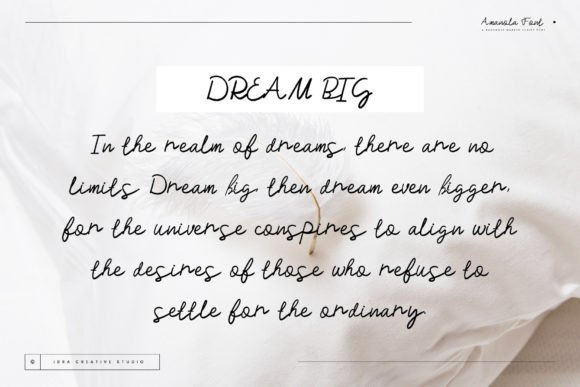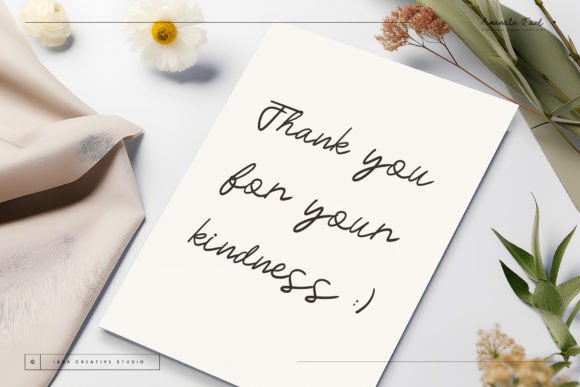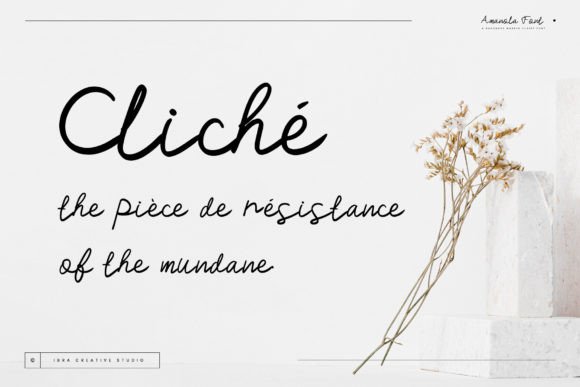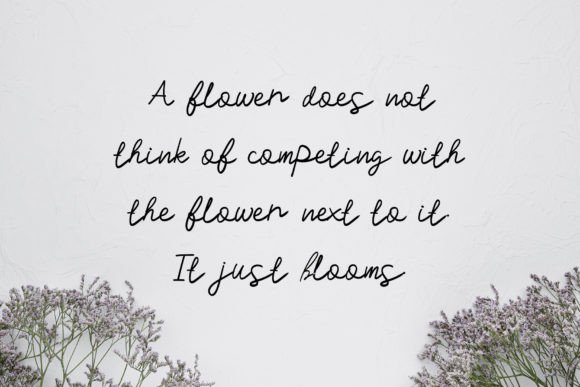
Amanola Font: A Handmade Marker Script Font with a Touch of Whimsy
In the world of typography, few fonts manage to capture the essence of handcrafted authenticity while still exuding modern design elements. Amanola, a captivating handmade marker script font, is one such typeface that seamlessly blends the warmth of hand-drawn markers with a touch of sophistication. This font is perfect for designers and crafters looking to add a personal touch to their projects.
The Characteristics of Amanola Font
Amanola’s letters are characterized by fluid strokes and an organic flow that emulates the character of hand-drawn markers. The font features subtly varying line weights, giving it a dynamic and expressive feel. The playful letter connections and carefully crafted details contribute to a uniquely personalized and inviting aesthetic. Whether you’re working on a branding project, a craft tutorial, or a social media graphic, Amanola’s distinctive charm is sure to make your work stand out.
What Makes Amanola Font So Special?
Amanola’s uniqueness lies in its ability to infuse any project with a sense of creativity and spontaneity. The font’s handmade nature gives it a relatable and approachable feel, making it perfect for designers and crafters who want to connect with their audience on a personal level. Amanola’s effortless grace and fluid strokes make it an excellent choice for a wide range of projects, from invitations and greeting cards to blog posts and social media graphics.
Using Amanola Font in Your Design Projects
Amanola’s versatility makes it an excellent addition to any designer’s toolkit. Here are a few ways you can use this beautiful font in your projects:
- Branding and Packaging: Add a touch of whimsy to your brand’s identity with Amanola’s unique and personalized aesthetic.
- Crafting and DIY Projects: Use Amanola to create eye-catching titles and headings for your craft tutorials, patterns, and blog posts.
- Social Media Graphics: Make your social media graphics stand out with Amanola’s playful and inviting font.
- Invitations and Greeting Cards: Add a personal touch to your invitations and greeting cards with Amanola’s beautiful, handmade script.
Tips for Getting the Most Out of Amanola Font
To get the most out of Amanola, here are a few tips to keep in mind:
- Experiment with Colors: Amanola’s handmade nature makes it perfect for use with a wide range of colors. Experiment with different color combinations to find the perfect look for your project.
- Mix and Match: Combine Amanola with other fonts to create a unique and eye-catching design.
- Play with Size: Amanola’s fluid strokes and varying line weights make it perfect for use at a wide range of sizes. Experiment with different font sizes to add visual interest to your project.
Amanola font is a beautiful, handmade marker script font that seamlessly blends the warmth of handcrafted authenticity with modern design elements. Its unique characteristics, versatility, and effortless grace make it an excellent choice for designers and crafters looking to add a personal touch to their projects. Whether you’re working on a branding project, a craft tutorial, or a social media graphic, Amanola is sure to make your work stand out.